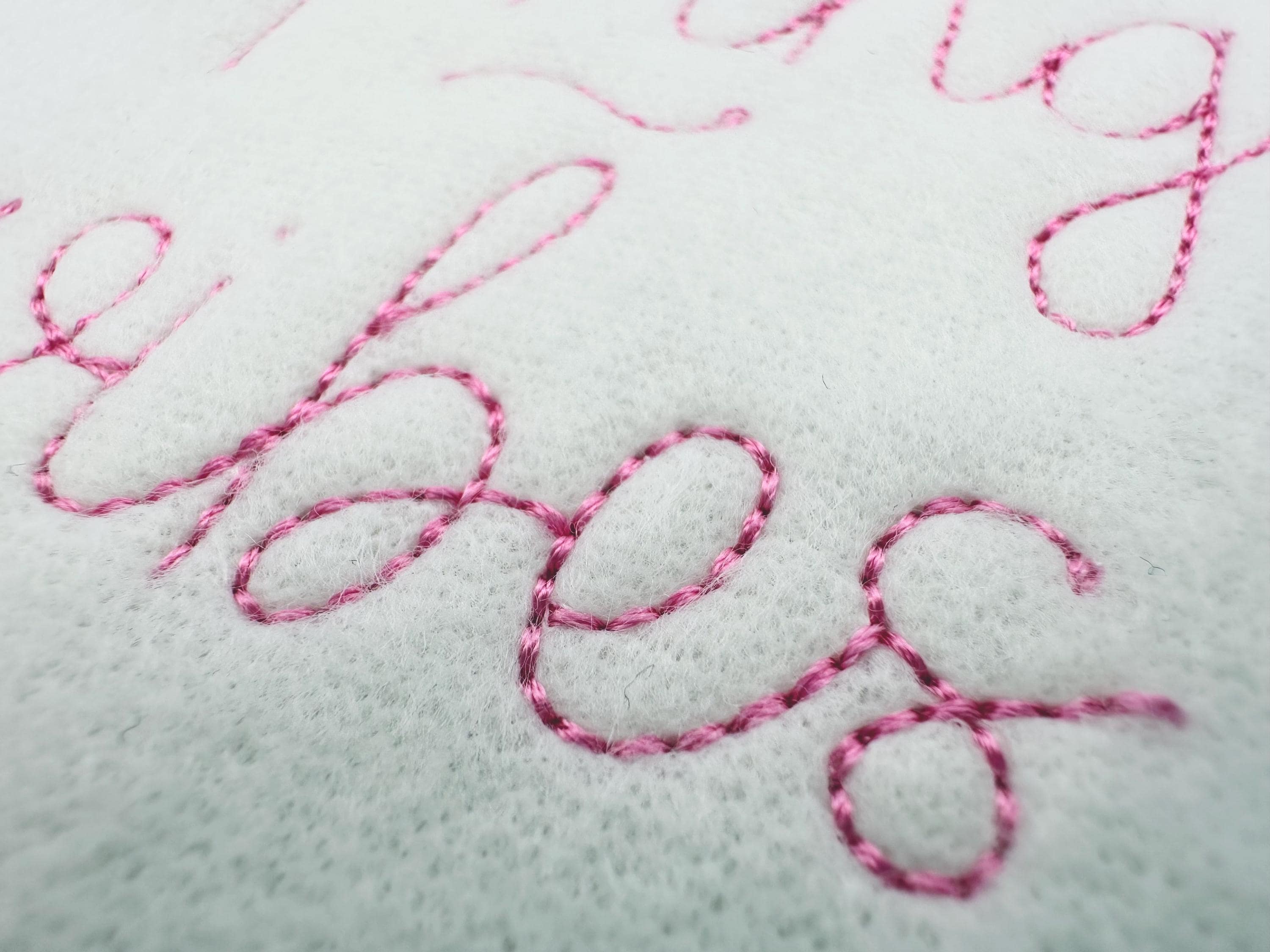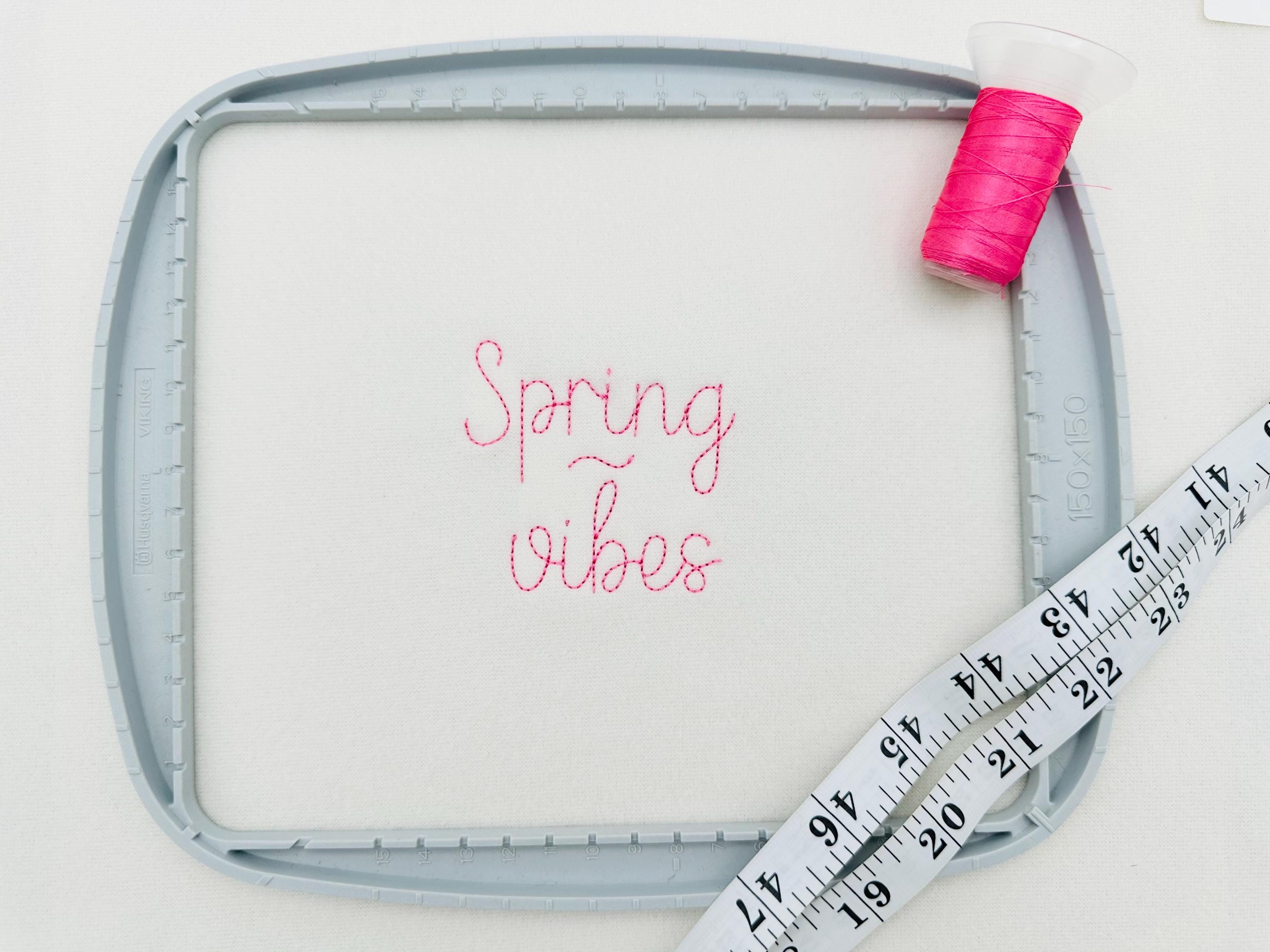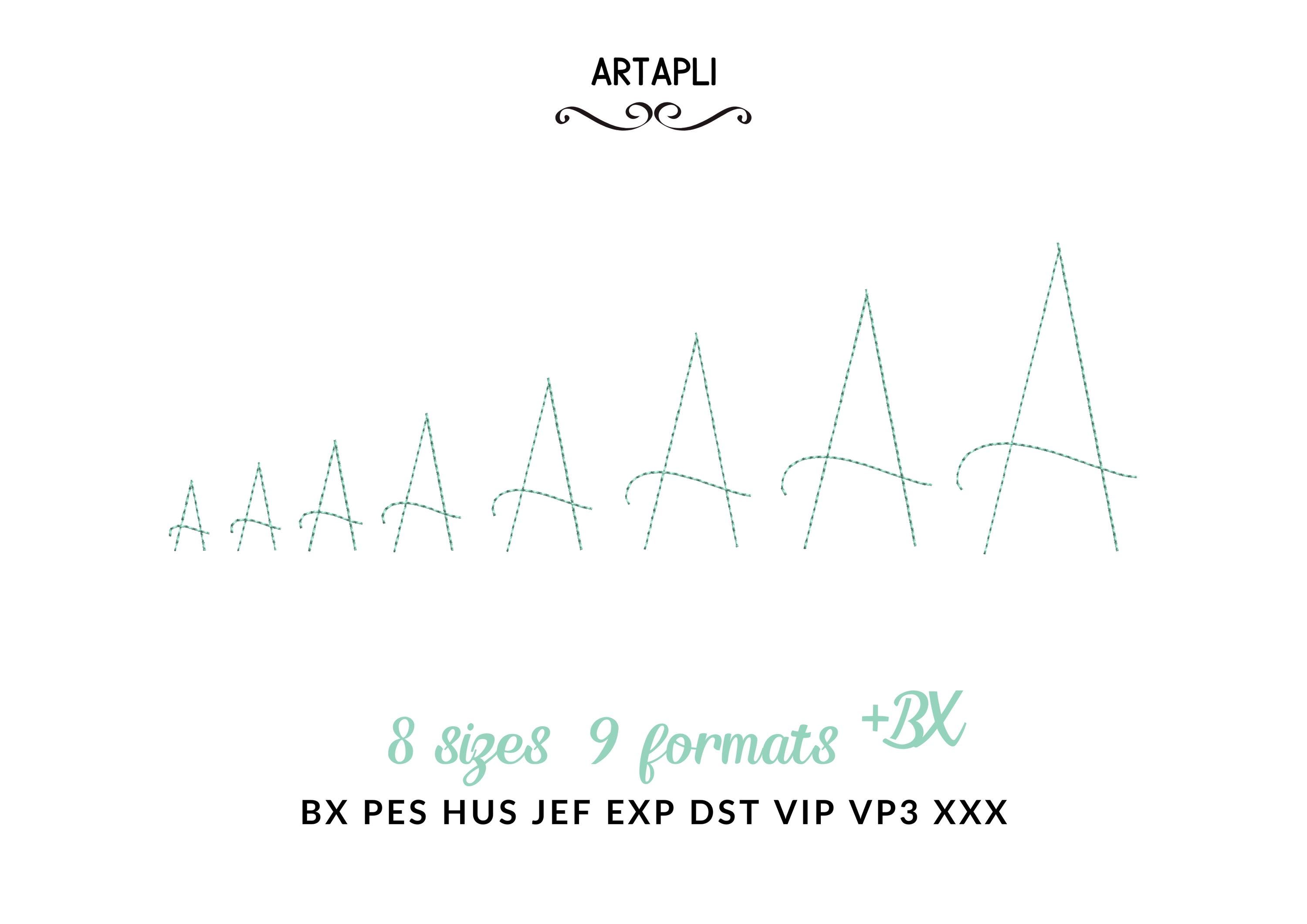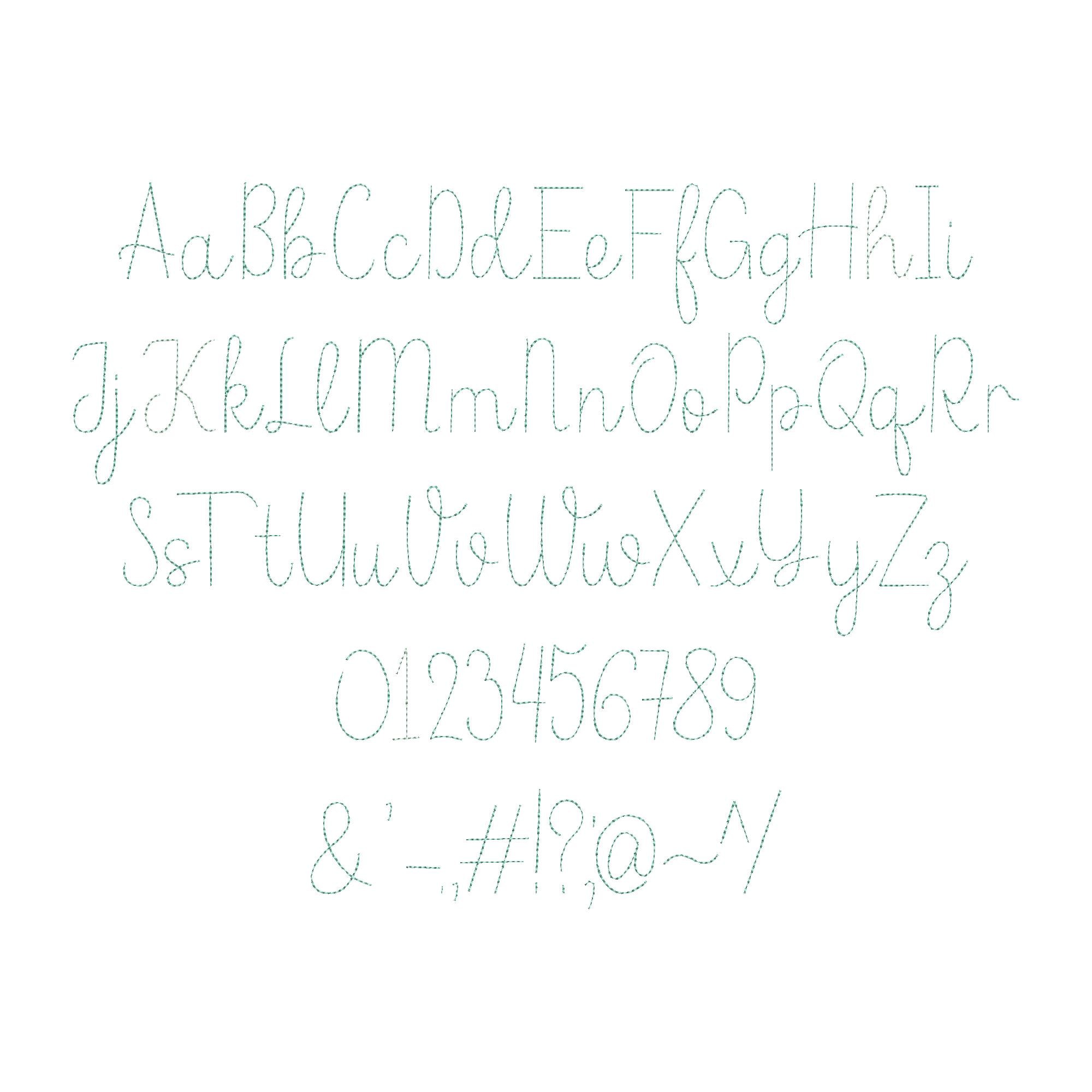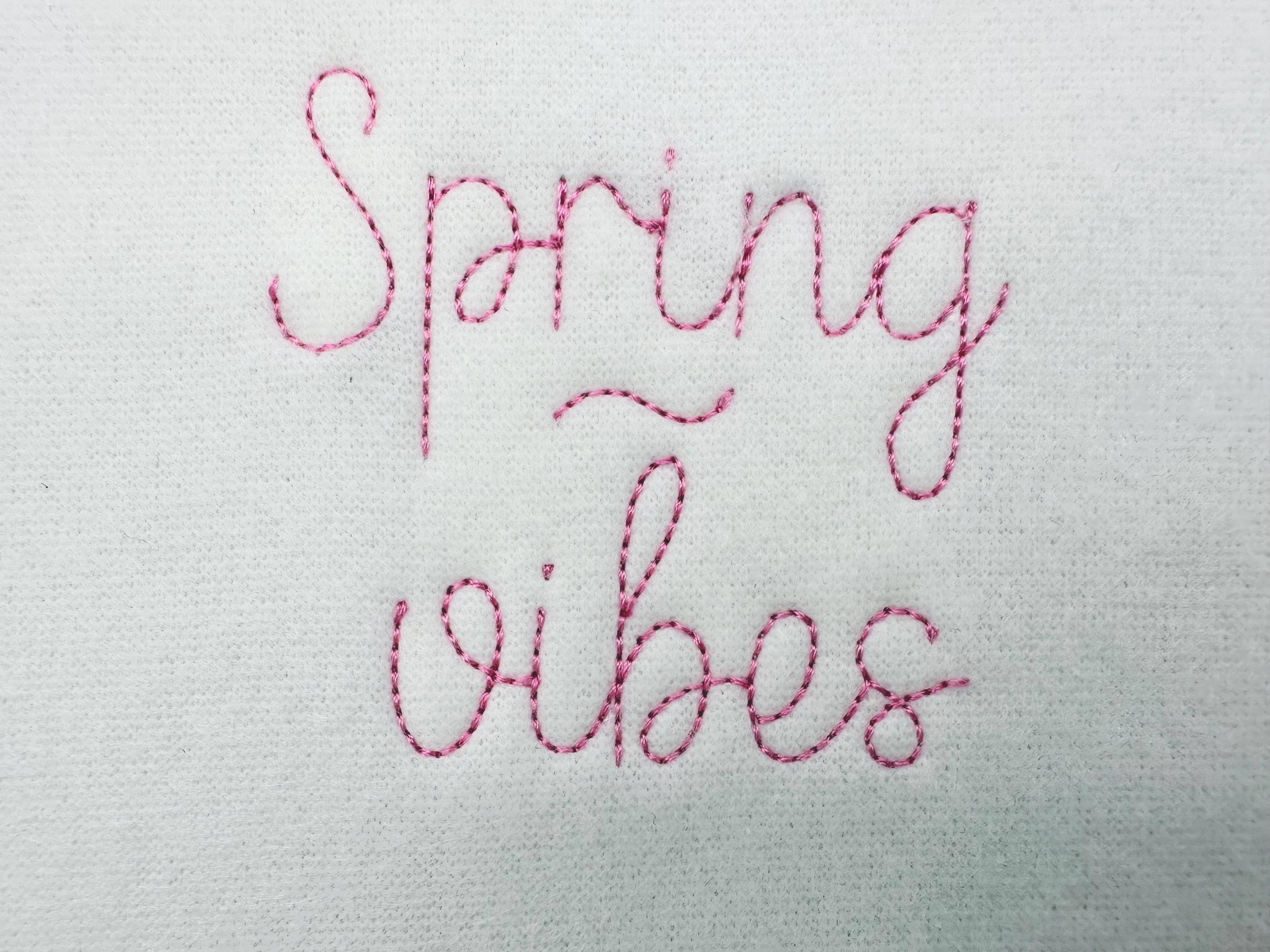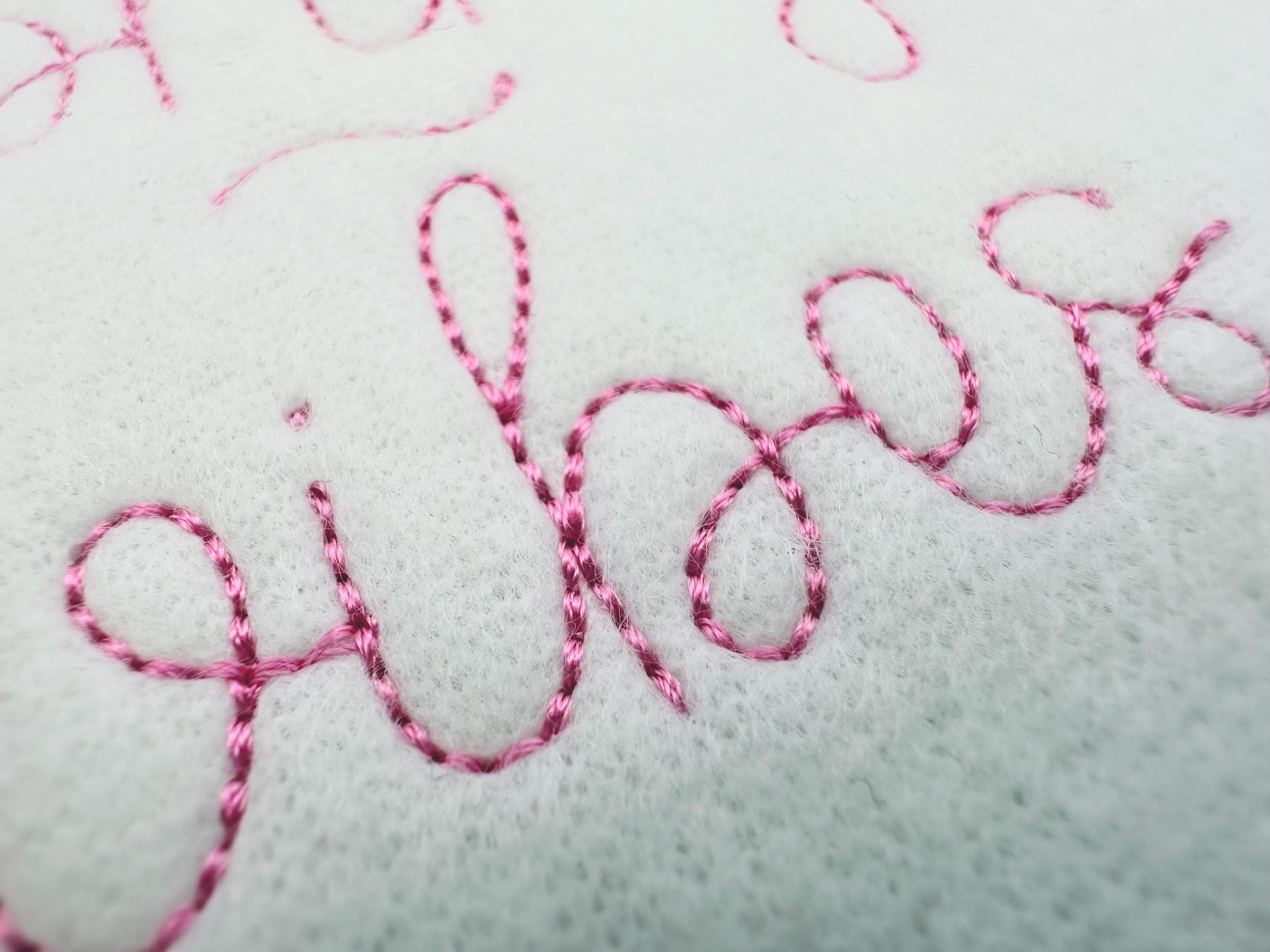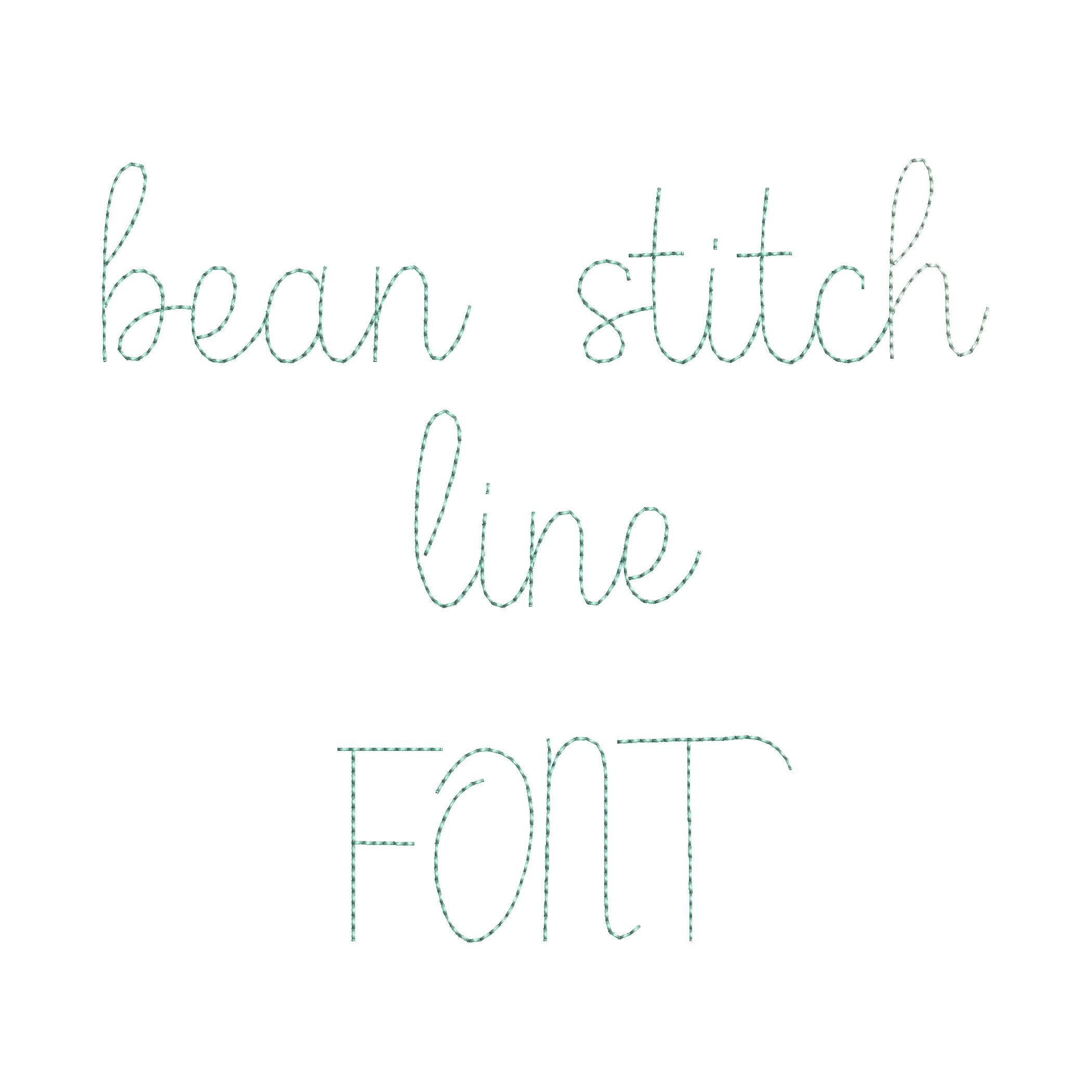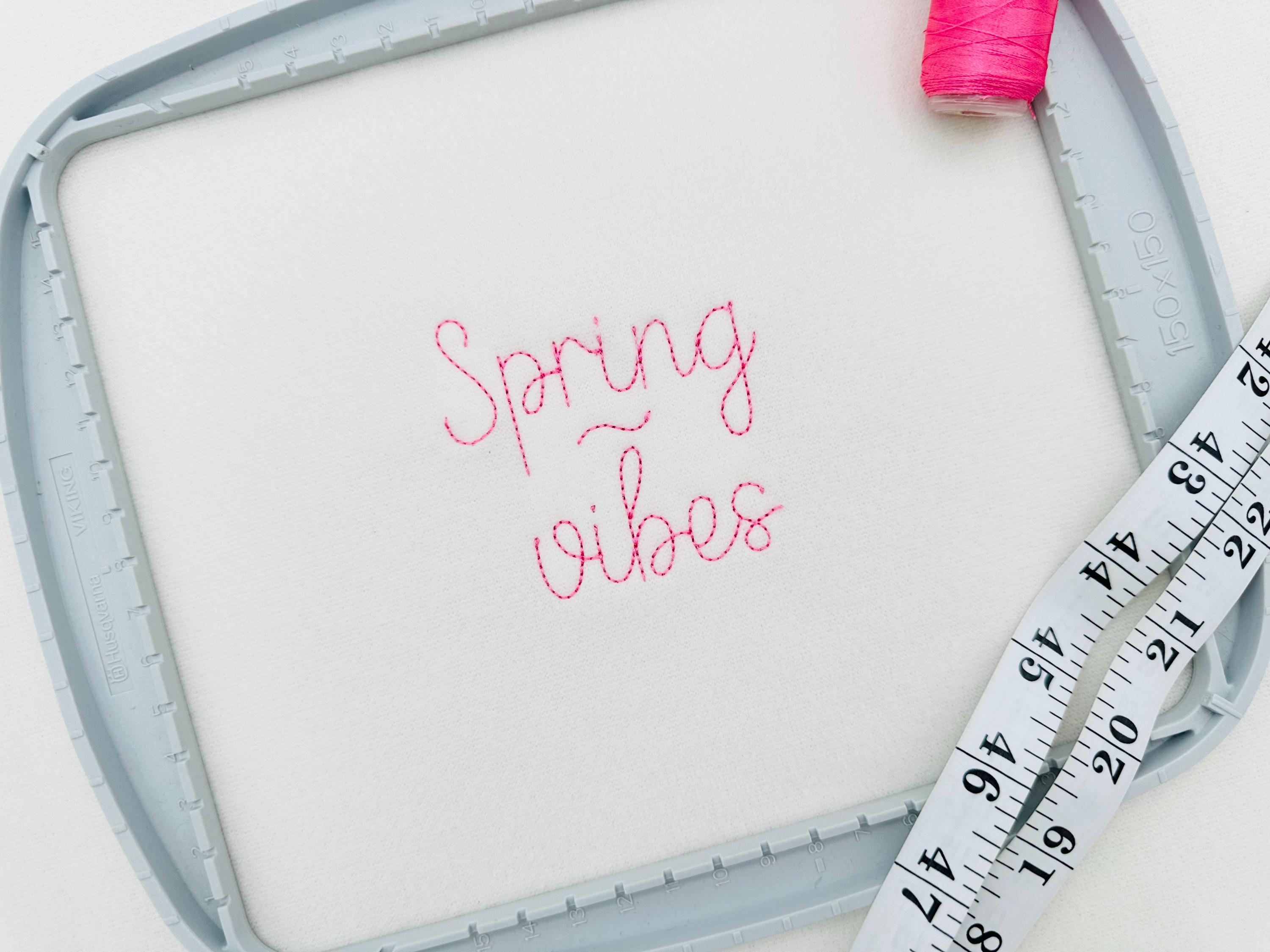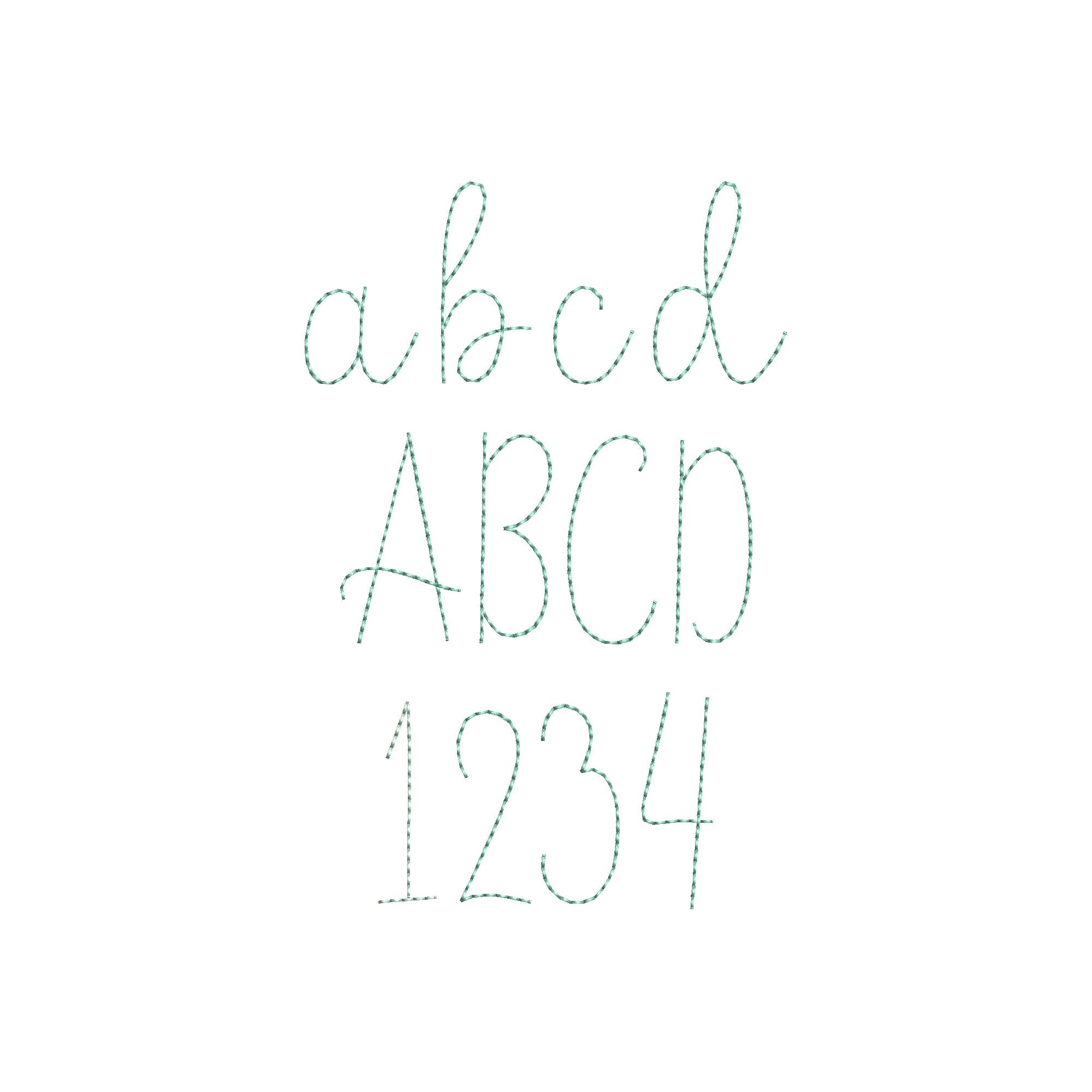
Handwritten script FONT Bean Stitch Line Alphabet machine embroidery designs letters numbers punctuation kids baby sizes 0.7 to 3 inch
Note: The font may look thin at larger sizes.